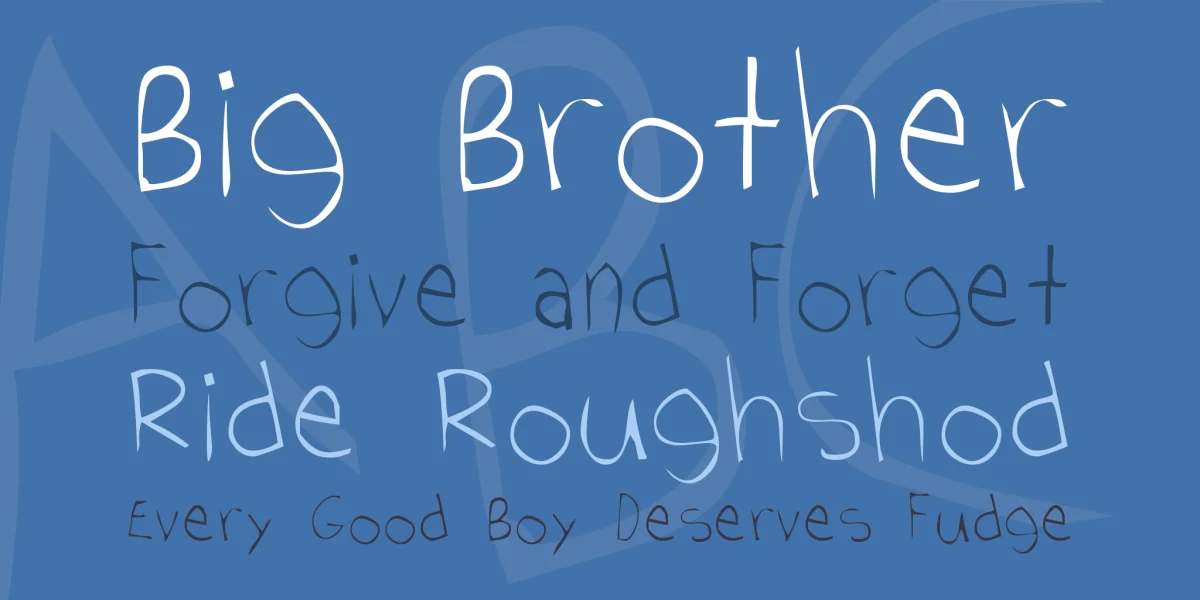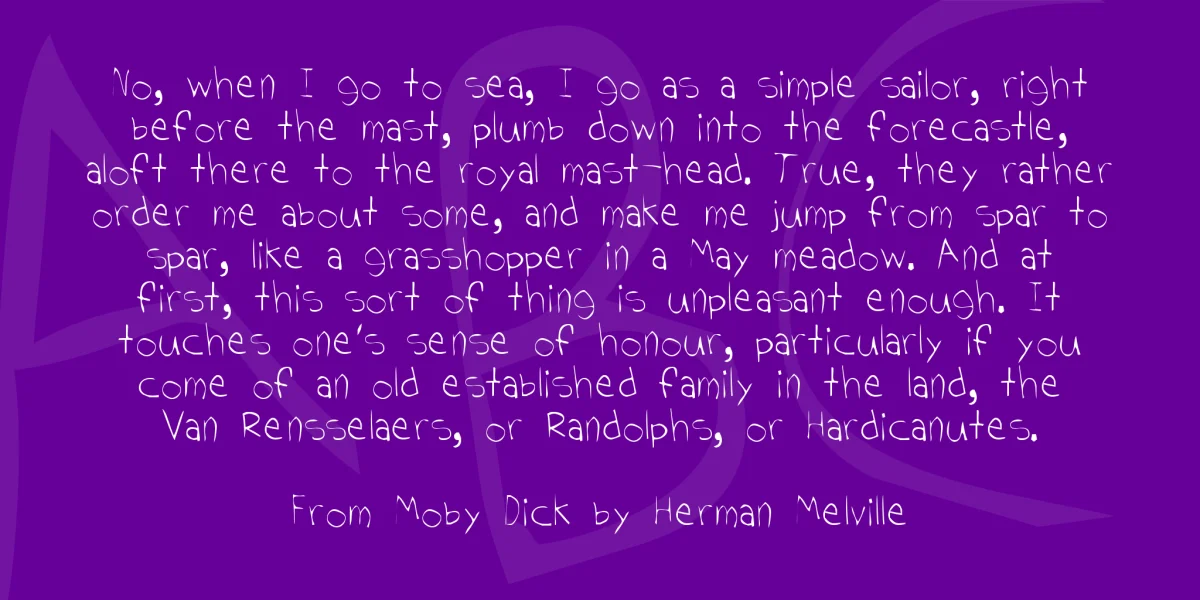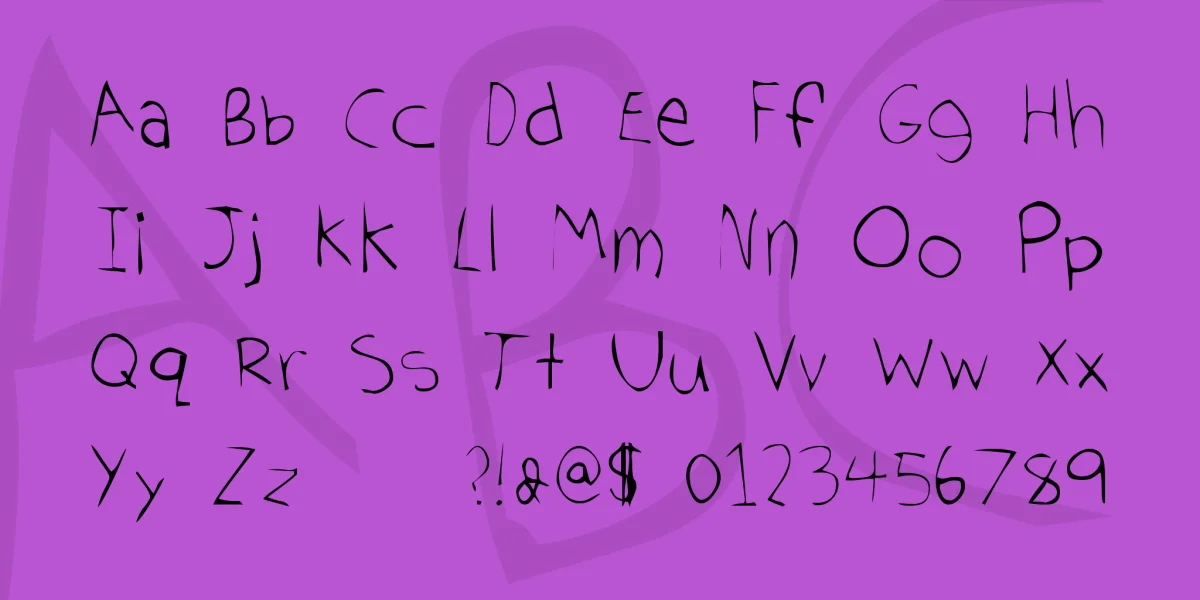
(Caps, lower, numbers, punctuation, some special) is a scanned and autotraced font of my handwriting. It can be used for text as well as headlines. Quite cute, I think. =)